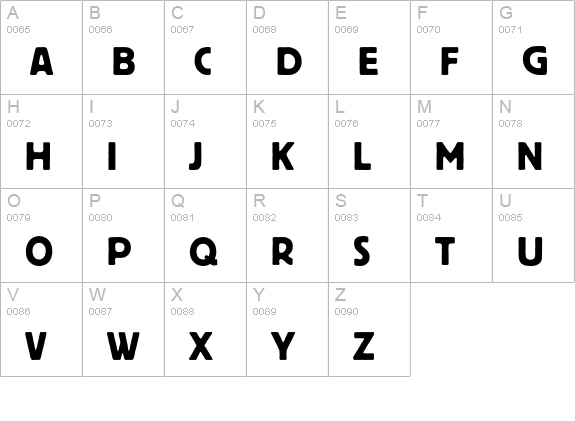
Block Berthold BQ Regular Font Details
Block Berthold BQ Regular is the standard, neutral variant in the Block typeface family \xE2\x80\x94 well suited to general body text, paragraphs, and standard typographic work.
Block Berthold BQ Regular font is a versatile and modern typeface that is perfect for a wide range of design projects. With its clean lines and bold presence, this font is sure to make a statement in any application. The Block Berthold BQ Regular font is ideal for headlines, posters, branding, and more, adding a touch of sophistication to your designs. The best part is, this font is available for free download at FontsMarket.com. Simply visit the website and download the Block Berthold BQ Regular font to enhance your creative projects with this stylish and eye-catching typeface. Don't miss out on this opportunity to elevate your designs with a high-quality font that is both professional and visually appealing.